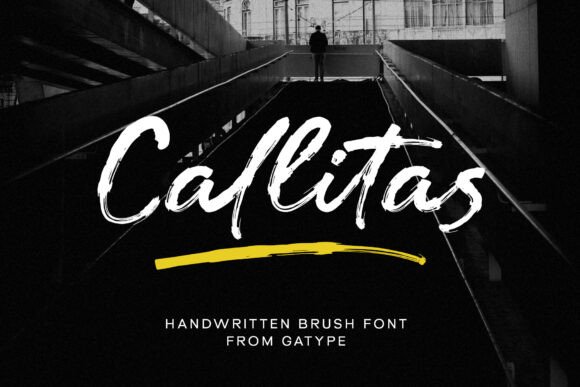
The Callitas Font: A Relaxed and Authentic Brush Script for Your Creative Projects
Have you ever been in the middle of a design project, pouring your heart and soul into it, only to get stuck on one thing: finding the perfect font? I certainly have. Recently, I was working on a branding project for a crafty client, and I needed a font that would capture the essence of handmade and natural products. That’s when I stumbled upon the Callitas font, a beautiful brush script that instantly resonated with my design vision.
A Personal Review of Callitas Font
I’m excited to share my honest review of the Callitas font, highlighting what I love and a few quirks to keep in mind.
- ✨ Organic and authentic feel: The Callitas font is created with a brush pen on paper, giving it a unique, hand-crafted look that’s perfect for designs that require a personal touch.
- ✅ Variety of lowercase letters: With two sets of lowercase letters, you can add variety to your text and create a more natural, organic look.
- 💫 Easy to read: Despite its brush script nature, the Callitas font is surprisingly easy to read, making it suitable for both headings and body text.
- ⚠️ Limited use in formal contexts: Due to its casual, hand-crafted nature, the Callitas font might not be the best fit for formal or professional projects that require a more traditional look.
- 🤔 Kerning can be a bit tricky: As with many script fonts, kerning can be a bit tricky, especially when using the font at smaller sizes.
- Experiment with OpenType features, such as glyphs and stylistic alternates, to add variety to your text.
- Take advantage of OpenType features, such as ligatures and stylistic sets, to enhance your text.
The Backstory of Callitas Font
The Callitas font was designed with the intention of capturing the essence of hand-crafted, natural products. The designer aimed to create a font that would feel organic and authentic, perfect for designs that require a personal touch. By using a brush pen on paper and carefully scanning and drawing the letters into vector format, the designer achieved a unique and relaxed look that’s hard to find in digital fonts.
Q: What is the Callitas font best suited for?
A: The Callitas font is best suited for designs that require a personal, hand-crafted touch, such as branding, packaging, and crafty projects.
Q: Is the Callitas font easy to read?
A: Yes, despite its brush script nature, the Callitas font is surprisingly easy to read, making it suitable for both headings and body text.
Q: Can I use the Callitas font in digital and print designs?
A: Yes, the Callitas font can be used in both digital and print designs, making it a versatile addition to your font library.